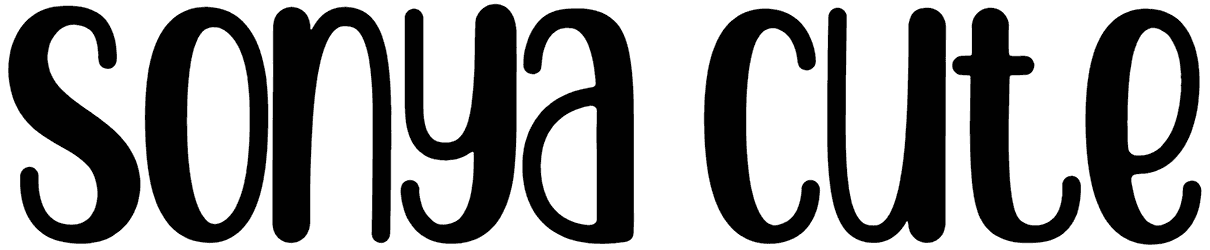
Sonya Cute Font
Sonya Cute is an attractive font that seems friendly and grabs your attention at first sight. This cartoon font has an energetic style and remains in the viewer’s mind.
You may use the Sonya Cute font for various cases, such as animations, cartoons, and posters. This fancy font’s letters have a playful form with soft edges, sending a friendly vibe to your audience. So download it now without hesitation.